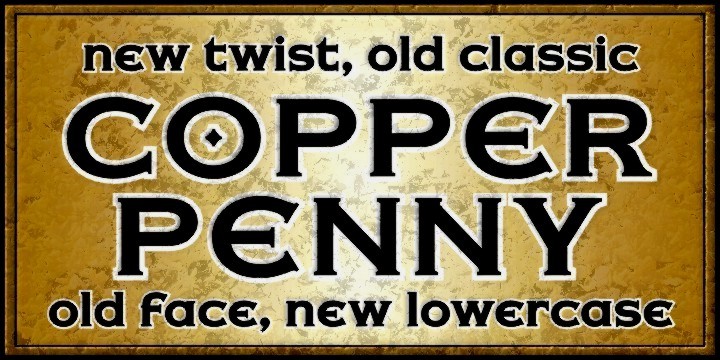
The Copper Penny Font is ideal for vintage metallic design projects including antique shop branding, steampunk-themed materials, vintage industrial signage, artisan metalwork advertising, rustic pub identities, historical coin collections, copper craft packaging, and nostalgic Americana marketing campaigns. This distinctive typeface brings authentic metallic patina and vintage industrial character to any design project requiring weathered, copper-inspired typography with genuine antique appeal and artisanal craftsmanship charm.
What makes Copper Penny Font so exciting is its perfect embodiment of aged copper aesthetics with warm, oxidized letterforms that capture the essence of vintage metalwork and artisanal craftsmanship. The letters feature copper-patina characteristics with weathered metallic appeal that creates an immediate sense of vintage authenticity and handcrafted quality. This distinctive metallic character makes it perfect for brands and projects that want to communicate artisanal heritage, vintage craftsmanship, and the appealing warmth of aged copper and traditional metalwork artistry.
The Copper Penny Font family typically includes regular and bold weights, often with oxidized variations and metalwork-inspired decorative elements. Many versions feature vintage symbols, copper craft glyphs, and antique design elements that enhance its authenticity for artisanal and vintage industrial applications.
Whether you're designing for antique businesses, artisan crafters, or vintage-themed brands, Copper Penny Font Free Download offers the perfect solution for projects that need to convey metallic vintage charm and artisanal authenticity. This font transforms standard text into weathered designs that immediately communicate vintage craftsmanship, copper heritage, and the warm appeal of aged metalwork to audiences appreciating antique aesthetics and traditional artisanal quality.